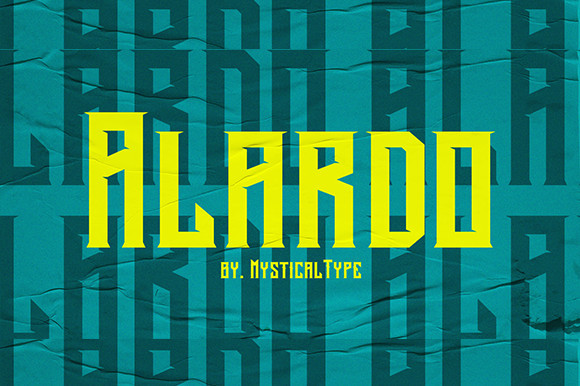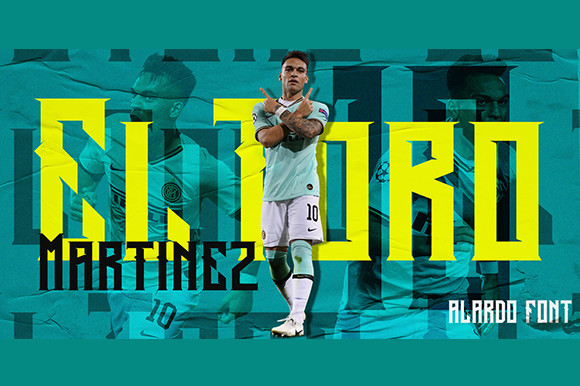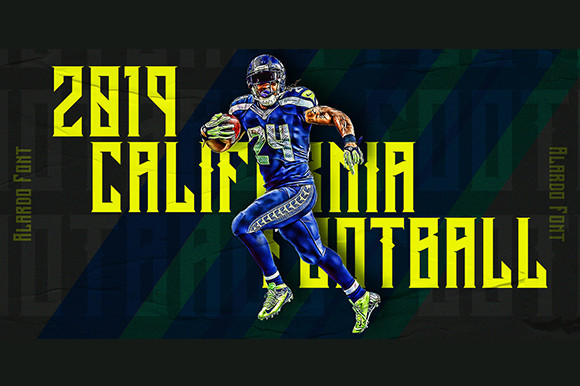
Alardo Font
Alardo is a bold and modern sans serif font, carefully handcrafted to become a true favorite. This font will look outstanding in any context, whether it’s being used on busy backgrounds or as a standalone headline!